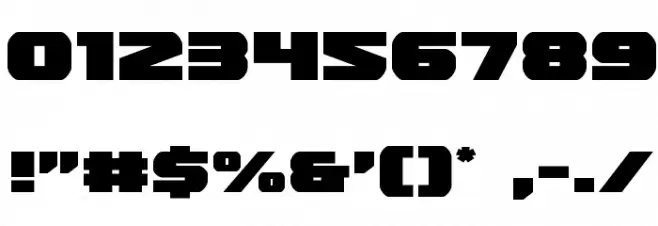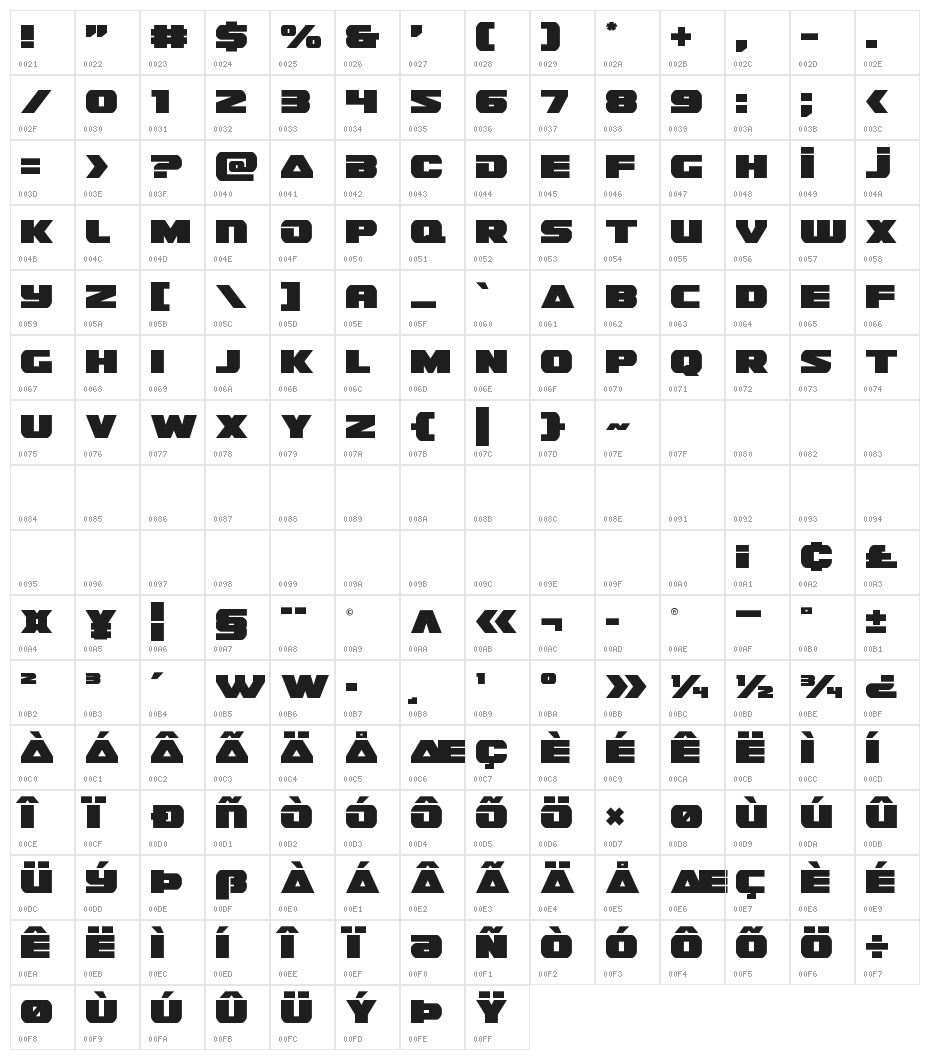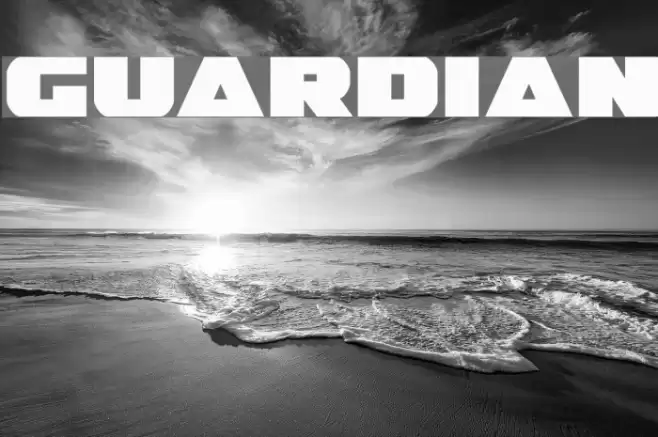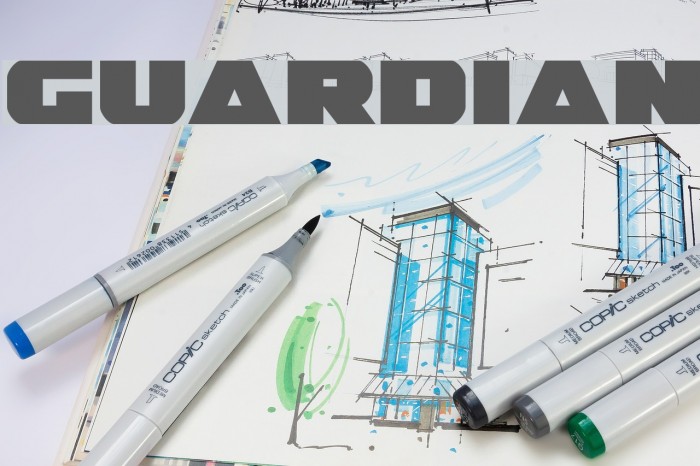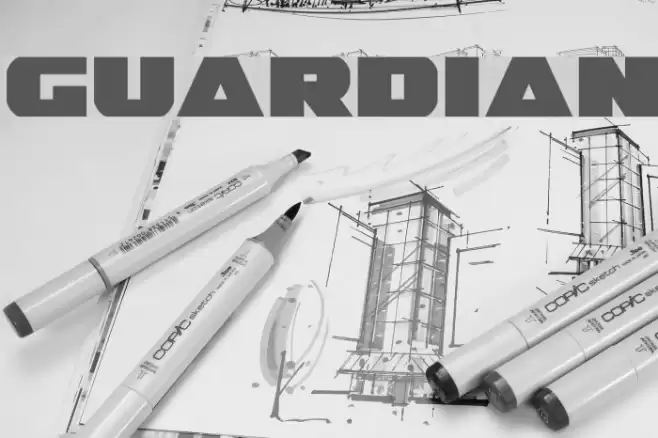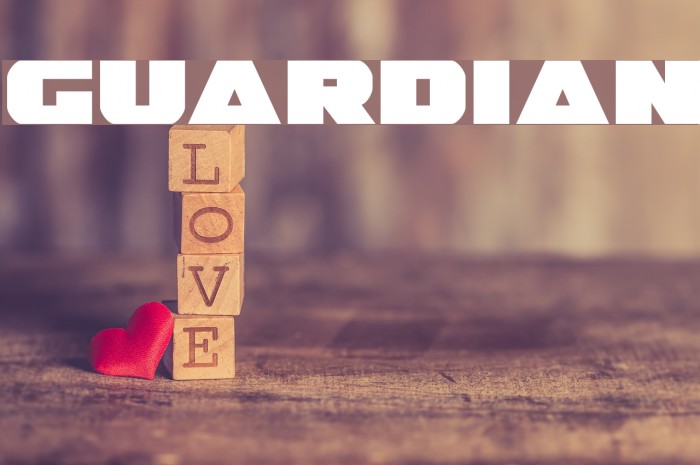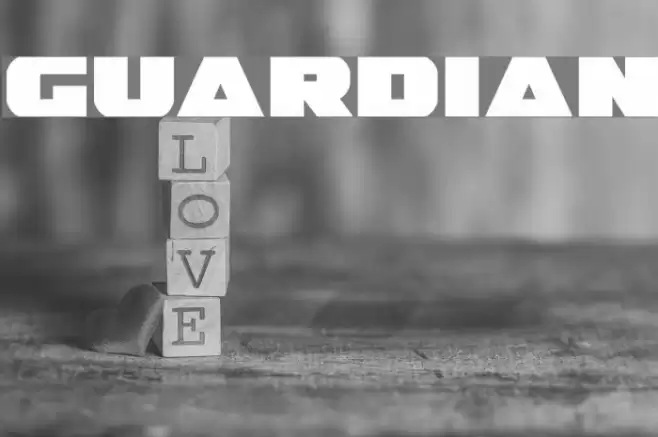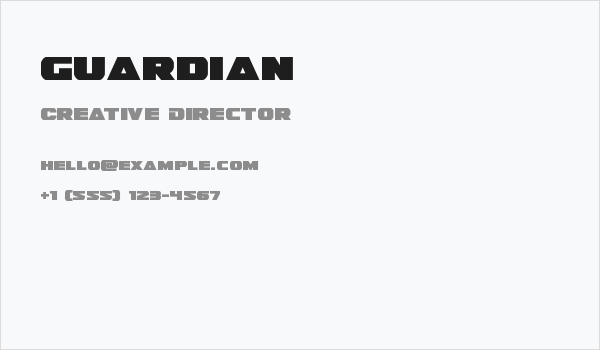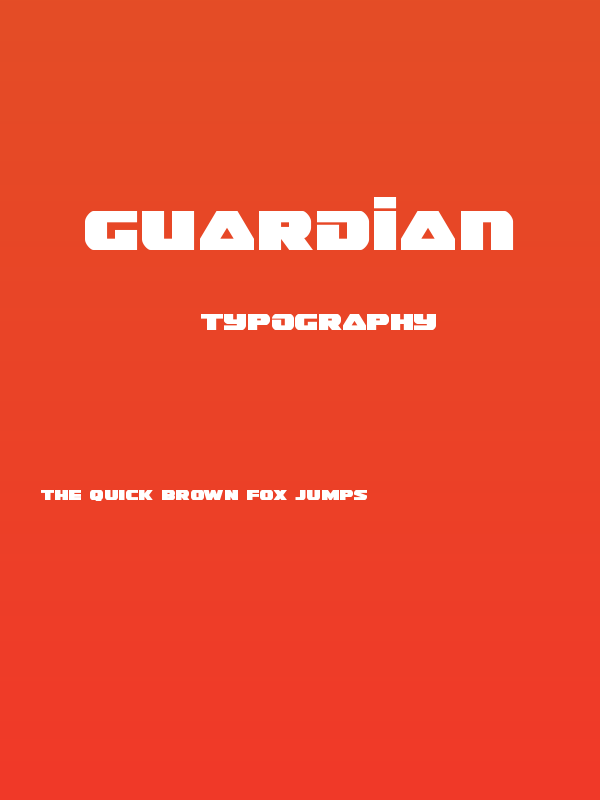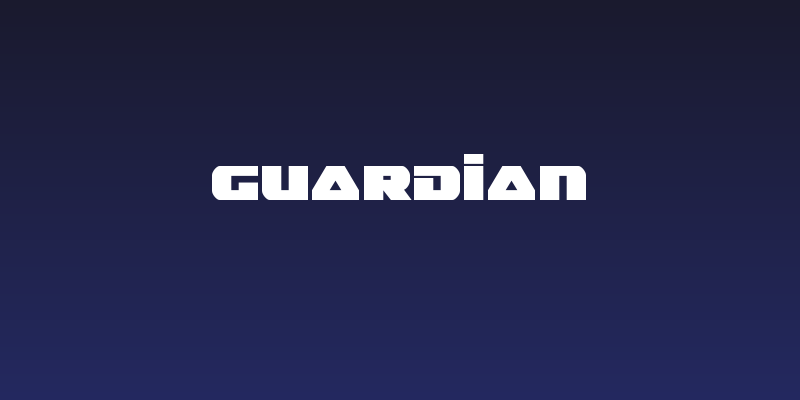
Guardian Font
Guardian Description
This font features a bold, geometric design with strong, angular lines and a futuristic aesthetic. The characters are wide and blocky, giving a sense of stability and strength. The uppercase letters have a uniform height, while the lowercase letters maintain a consistent style, enhancing readability. The numbers and special characters follow the same bold and angular theme, making them stand out. This font is ideal for projects that require a modern and impactful look, such as technology branding, video game titles, or sci-fi themed designs.
| Proposed Projects | Ideal for technology branding, video game titles, sci-fi themed designs, and impactful headlines. |